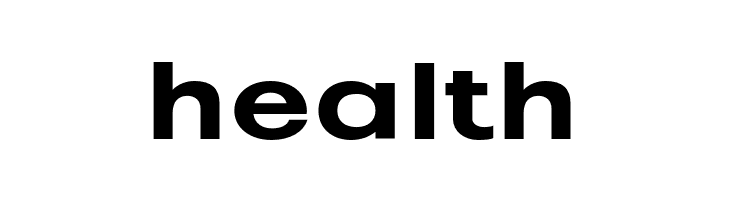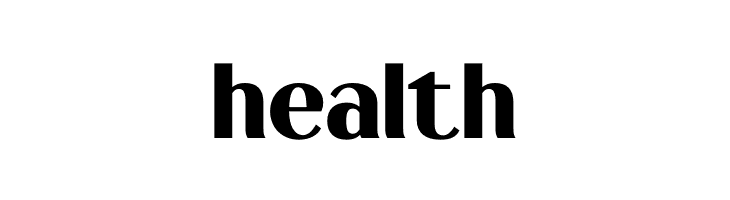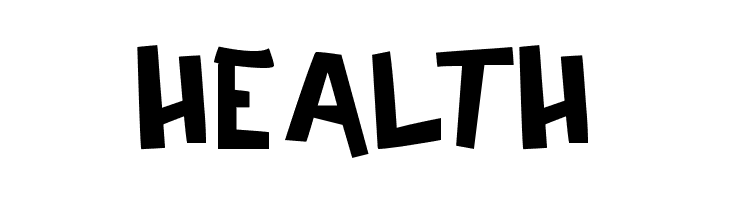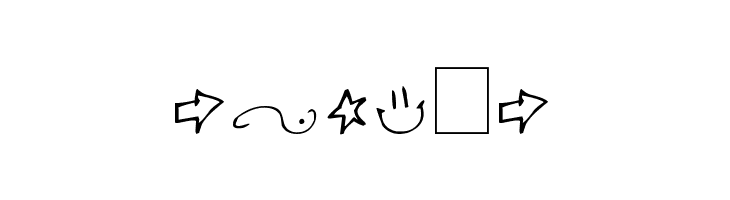
A bold, expanded font with a modern and professional appearance.
A bold, brush-style font with dynamic, hand-painted strokes.
Abstract geometric patterns with optical illusion effects.
A cursive, handwritten-style font with elegant, flowing strokes.
A bold, high-contrast font with a dramatic and elegant style.
A bold, playful, and hand-drawn font with a whimsical style.
The image contains doodles and symbols, not a valid font.
A bold, hand-drawn font with rugged, uneven outlines.